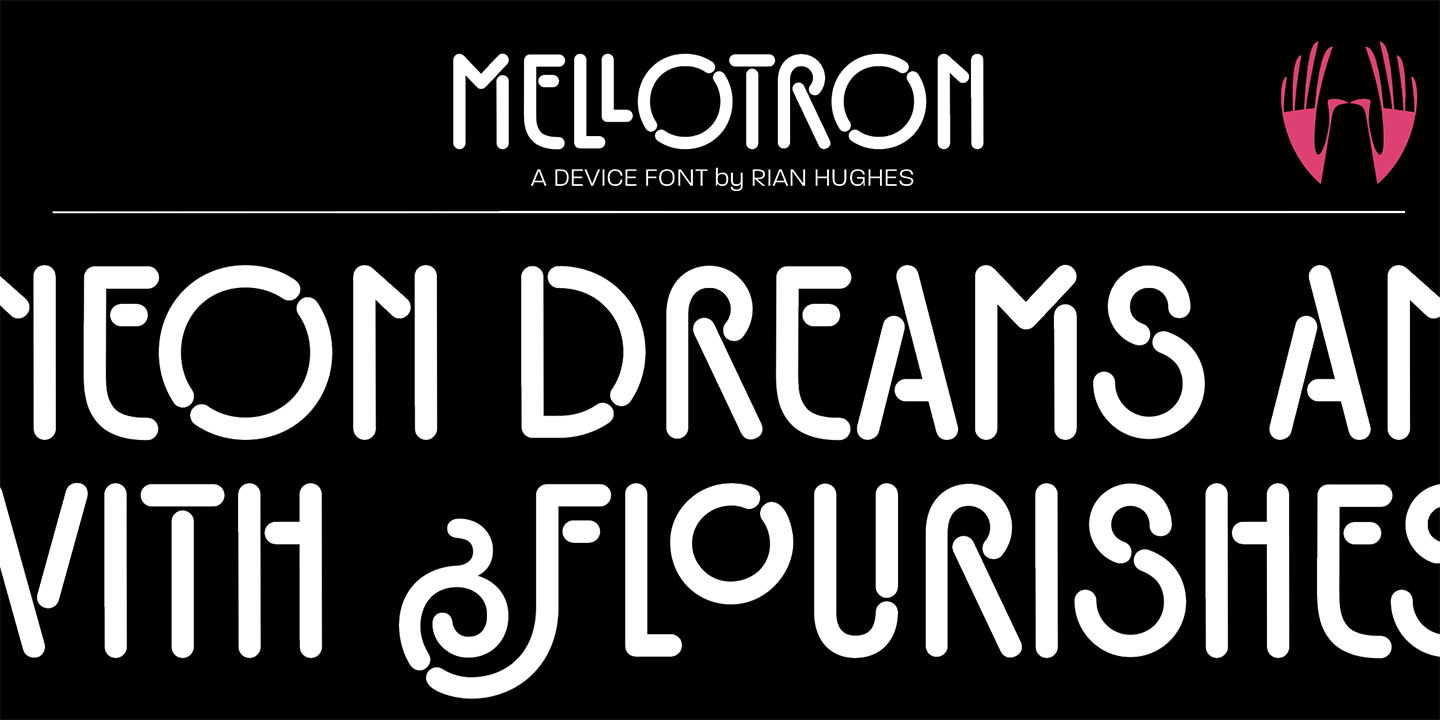
Mellotron Font is perfect for vintage music album covers, retro recording studio branding, analog synthesizer marketing, progressive rock band logos, psychedelic concert posters, classic electronic music festivals, nostalgic audio equipment packaging, atmospheric music documentaries, and vintage keyboard instrument designs.
What makes Mellotron Font so exciting is its atmospheric vintage sound that perfectly captures the ethereal magic and analog warmth of classic electronic music and progressive rock experimentation. This evocative typeface features flowing letterforms with synthesizer-inspired curves and analog proportions that instantly evoke the dreamy textures of mellotron strings and the cosmic soundscapes of 1970s progressive music. The font's distinctive character incorporates the mystical essence of vintage synthesizers while maintaining exceptional readability, making it ideal for music brands seeking to communicate creativity, nostalgia, and atmospheric depth.
Mellotron Font offers a harmonious family collection including Regular, Bold, Light, and Wavy variations, each maintaining the signature analog aesthetic while providing different levels of atmospheric impact for various music and audio applications. Additional musical symbols and psychedelic ornaments enhance the font's authentic vintage appeal for retro music projects.
Whether you're developing vintage music brands, creating atmospheric marketing materials, or designing nostalgic concert campaigns, Mellotron Font Free Download delivers the analog warmth and musical authenticity that vintage audio projects require. Its versatile nature makes it suitable for both large concert displays and detailed album liner notes while maintaining consistent retro appeal across all music platforms. This exceptional typeface combines musical heritage with modern functionality, ensuring your message communicates creativity and nostalgia that resonates with music enthusiasts who appreciate analog sound and value design that celebrates the magnificent era of electronic music innovation and progressive rock experimentation.